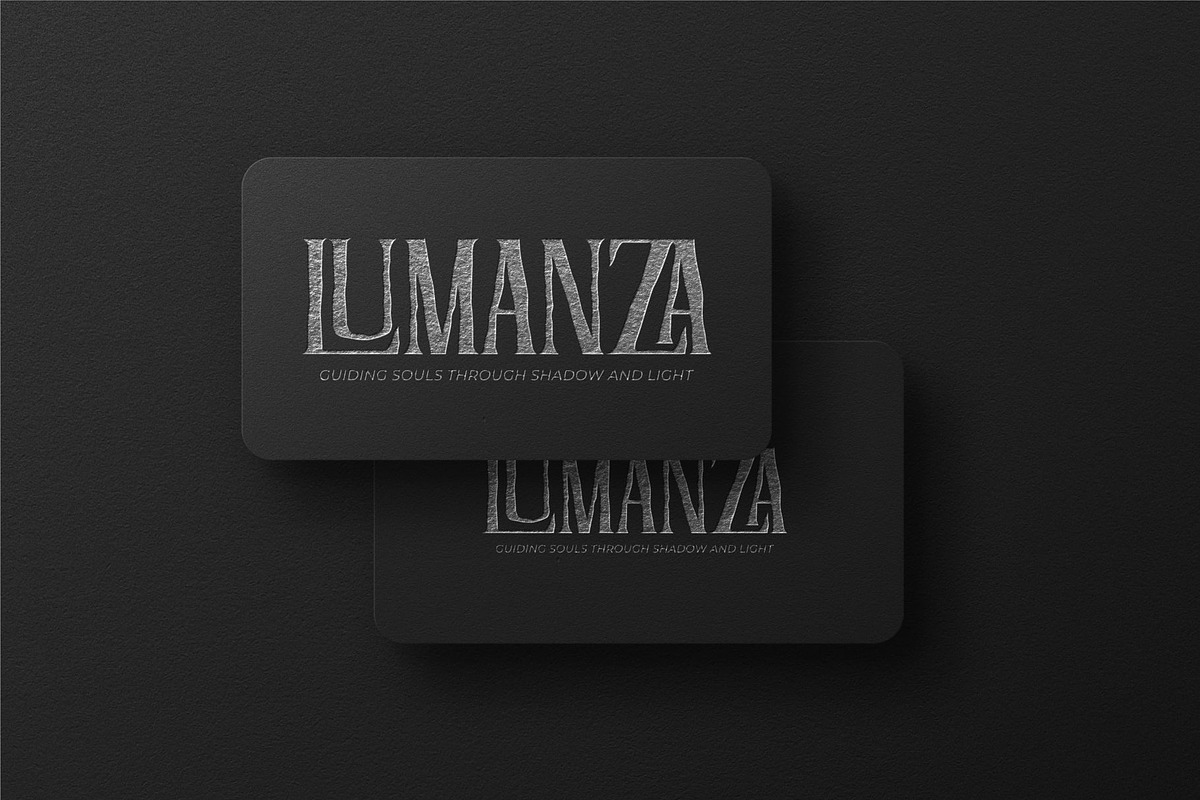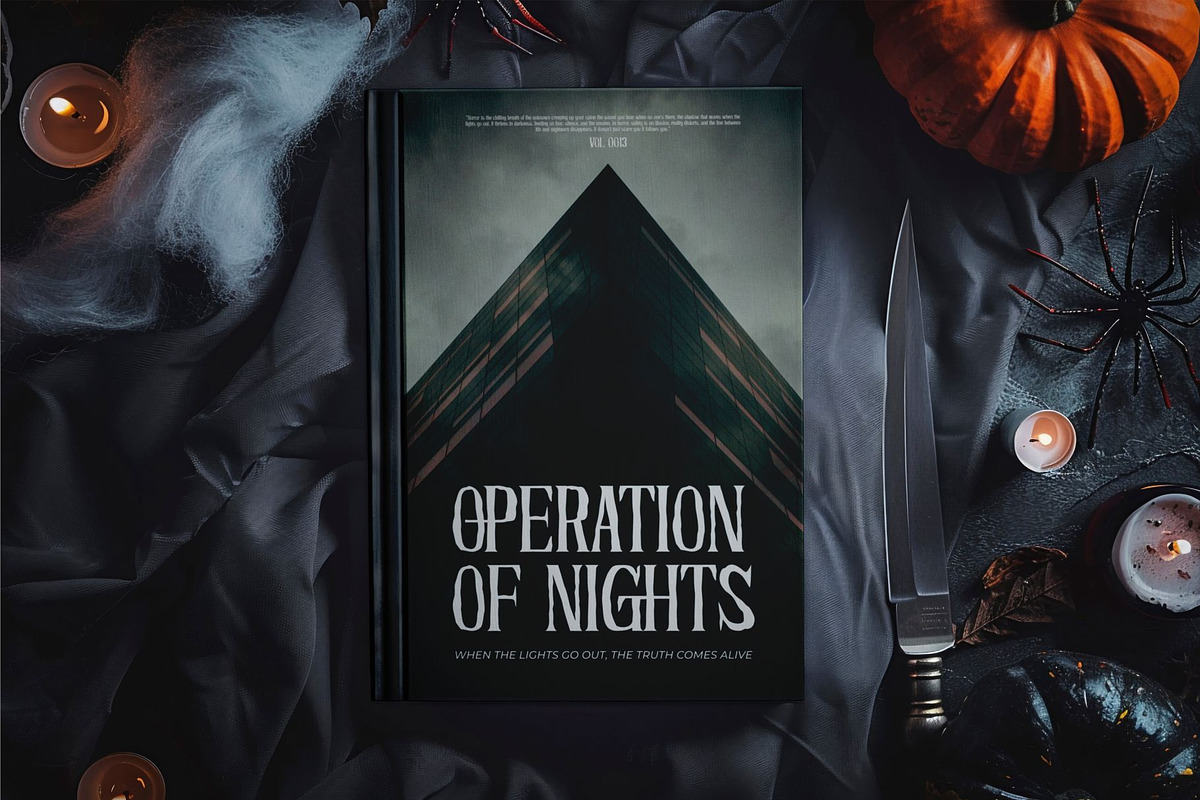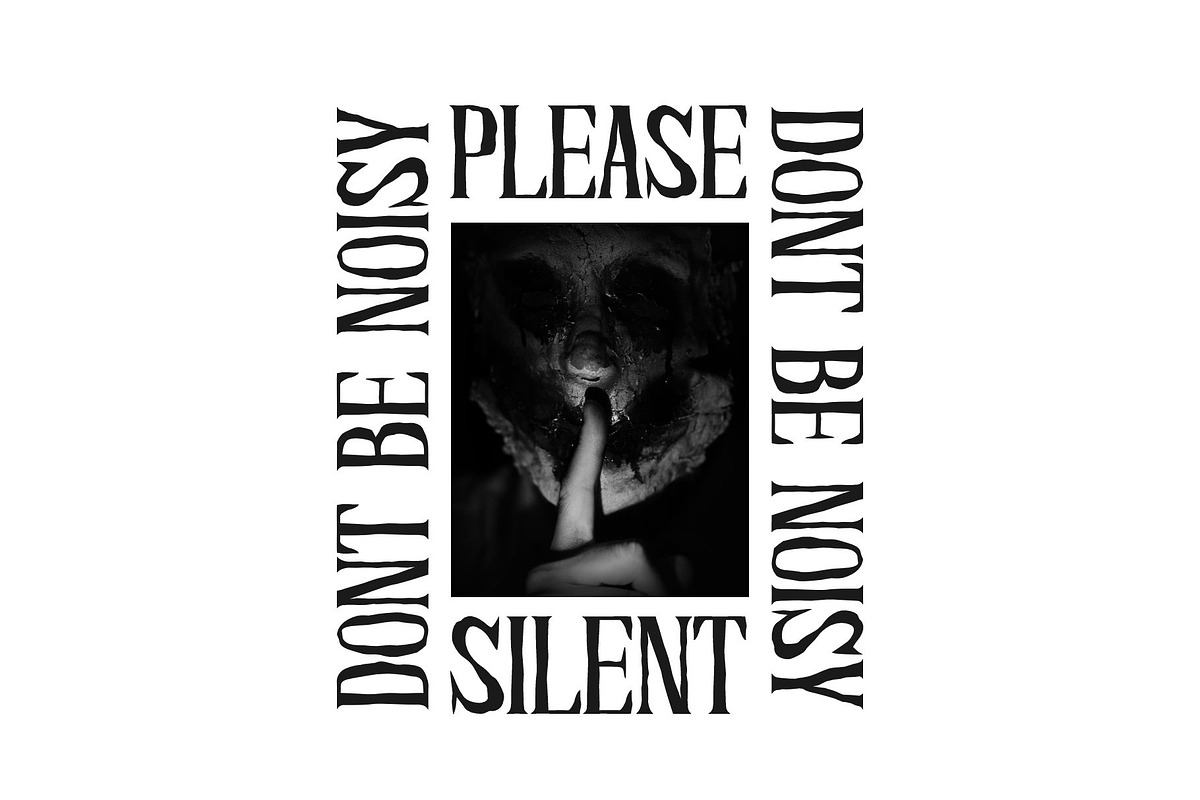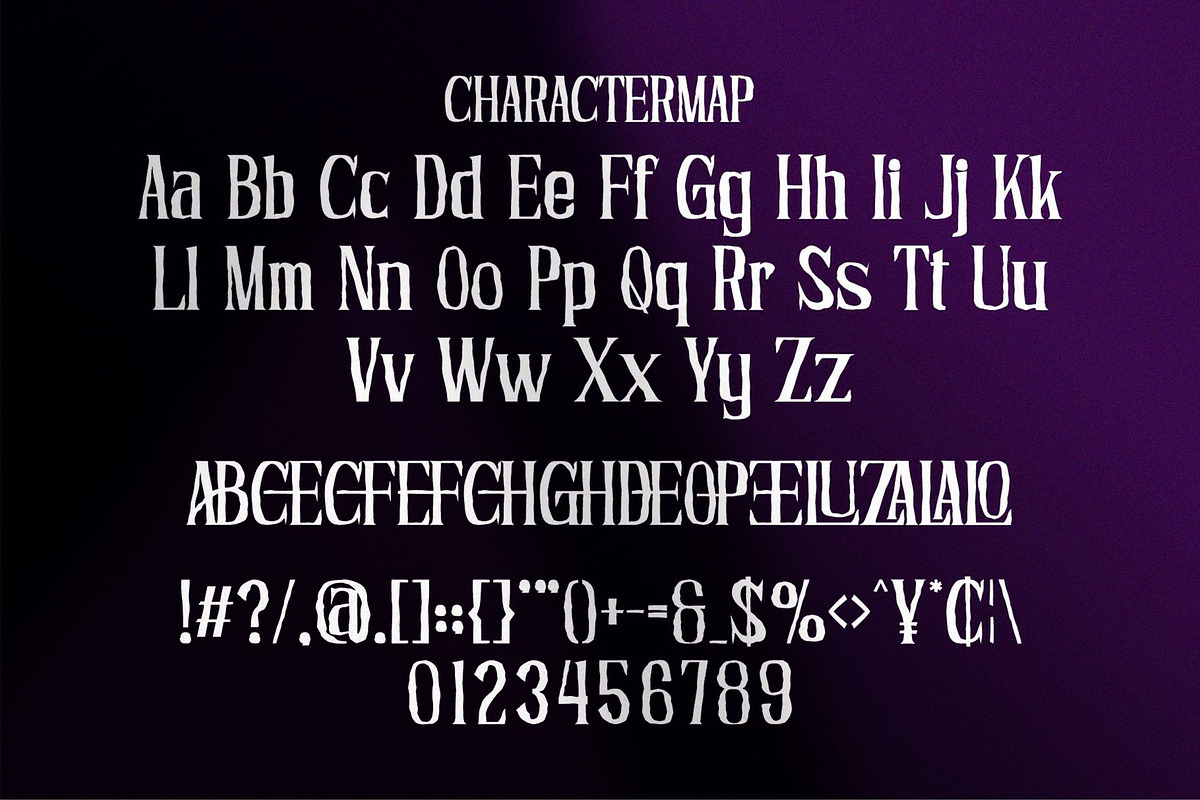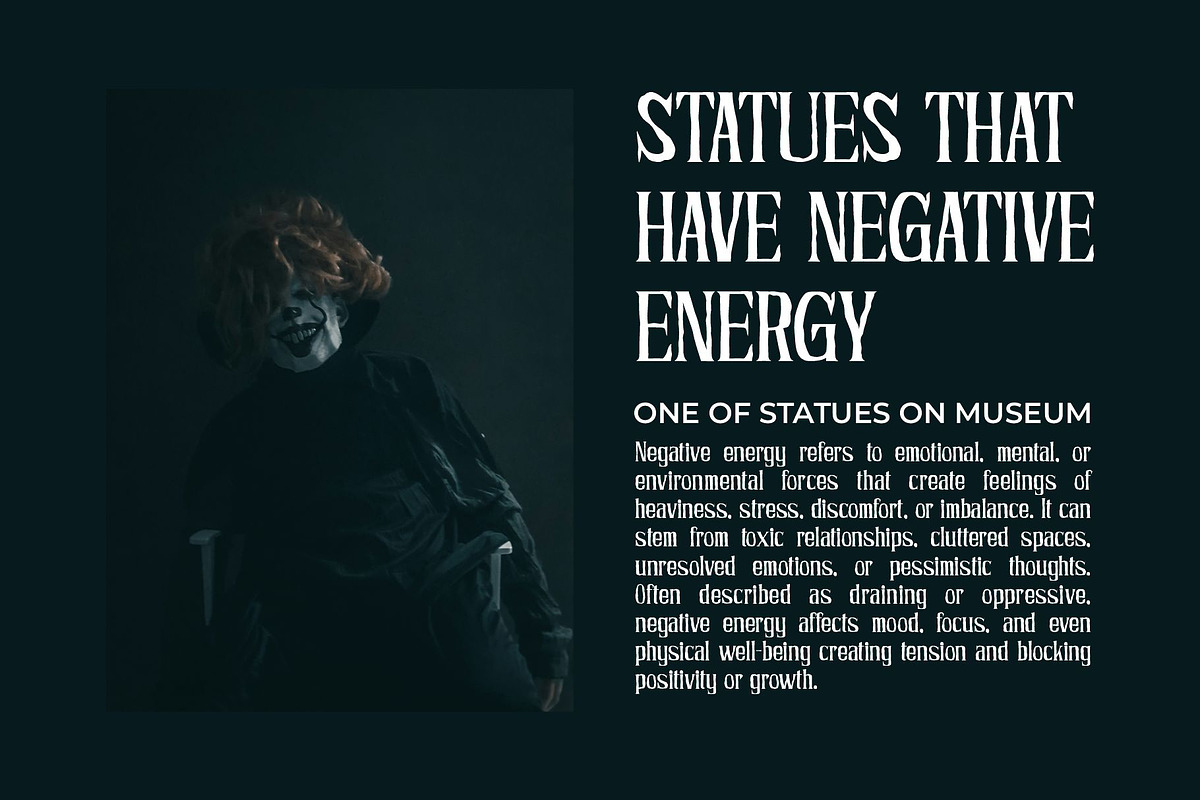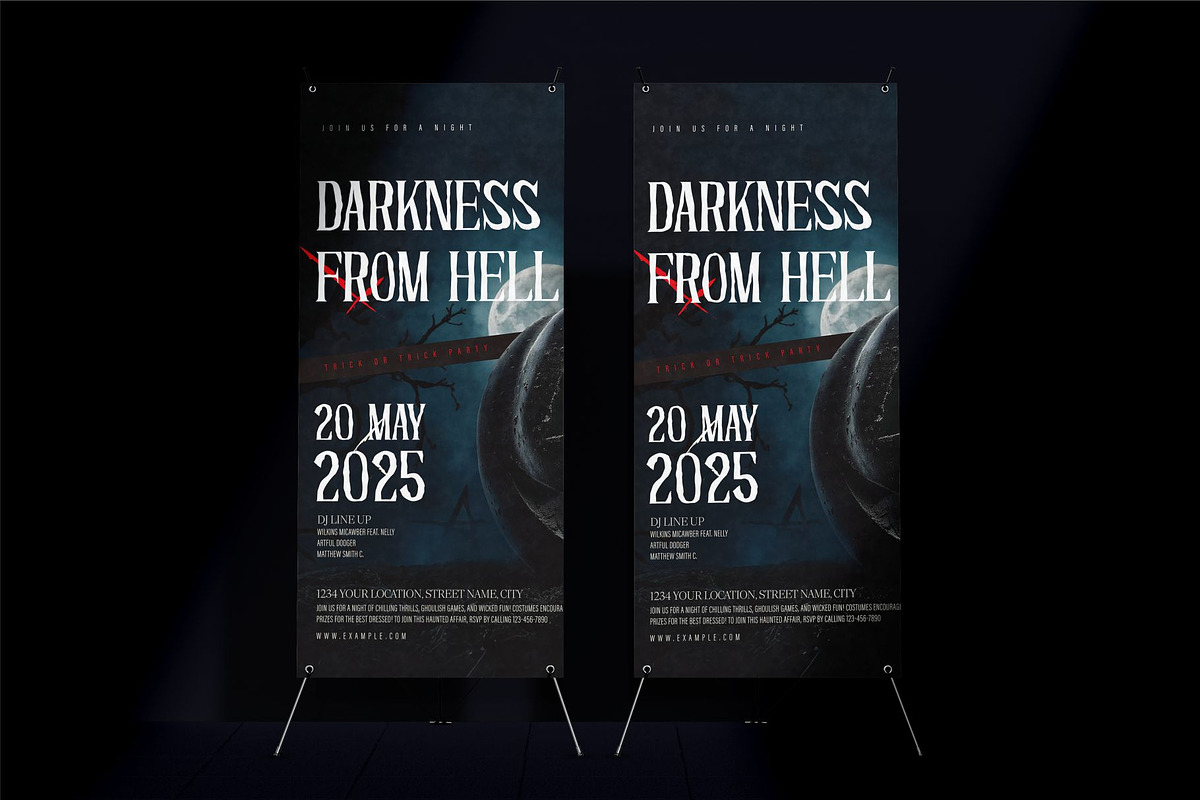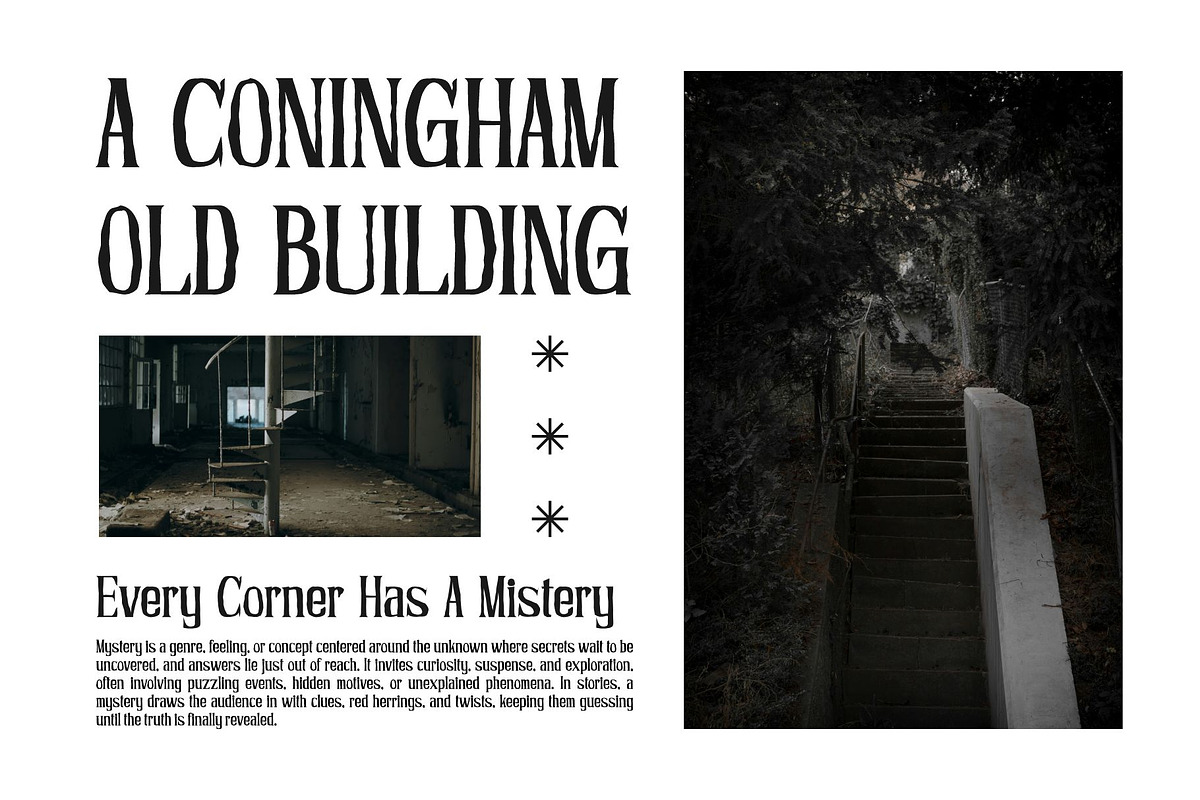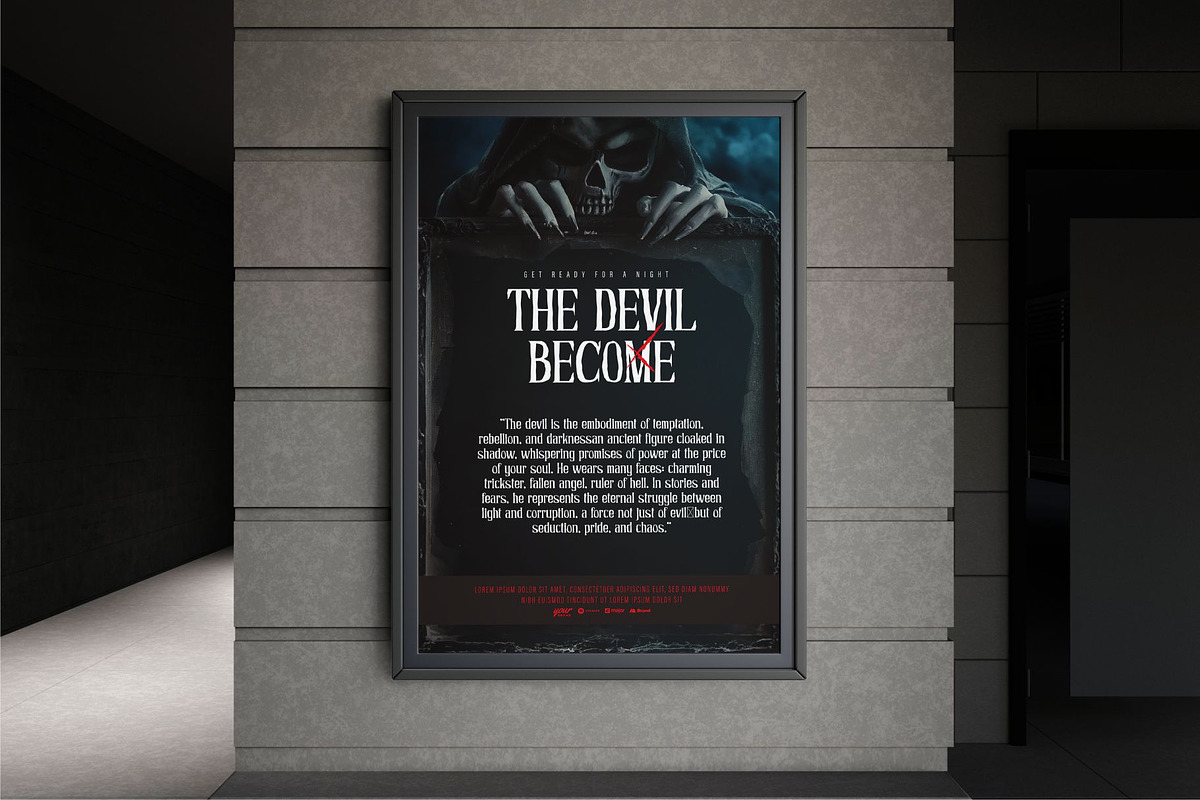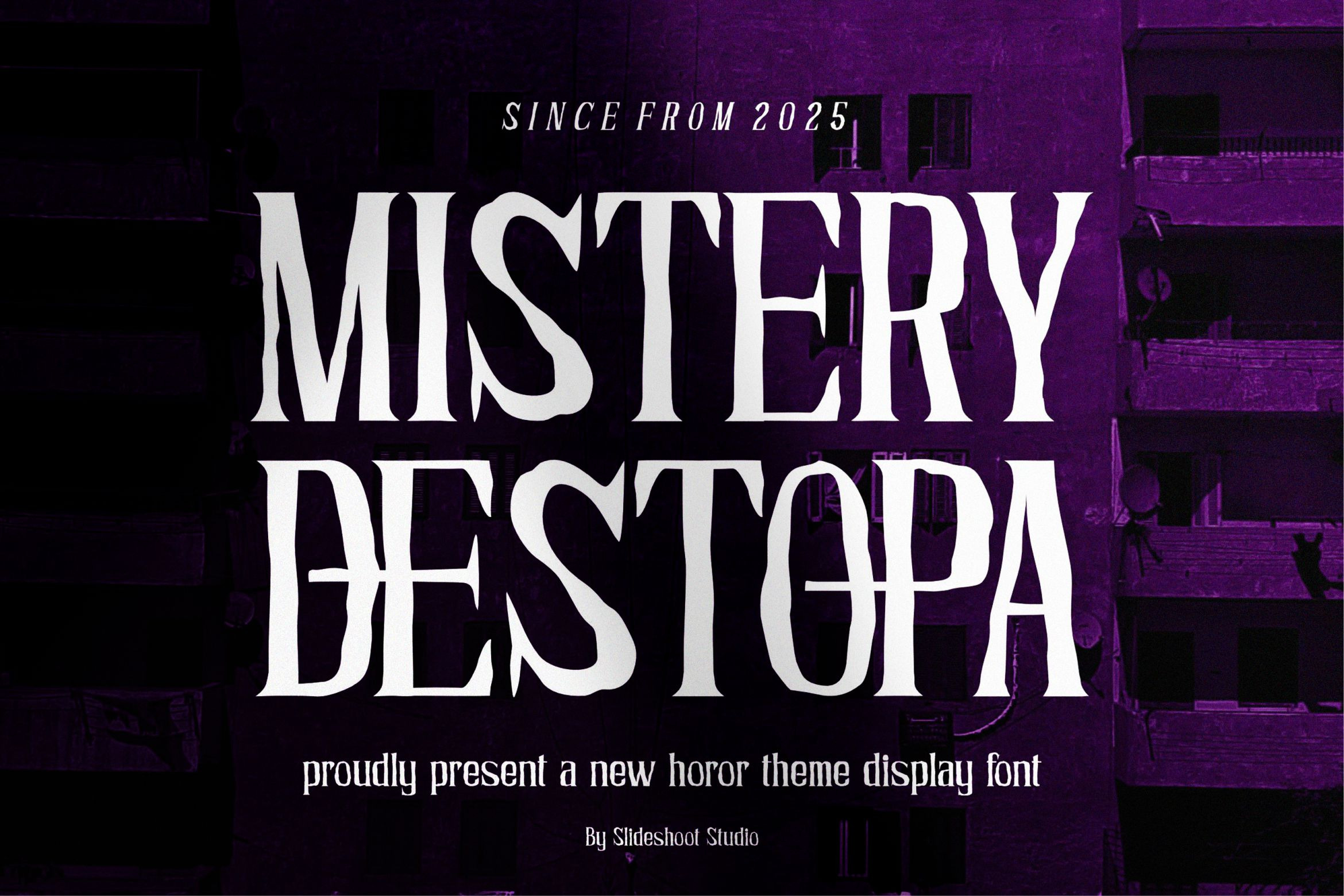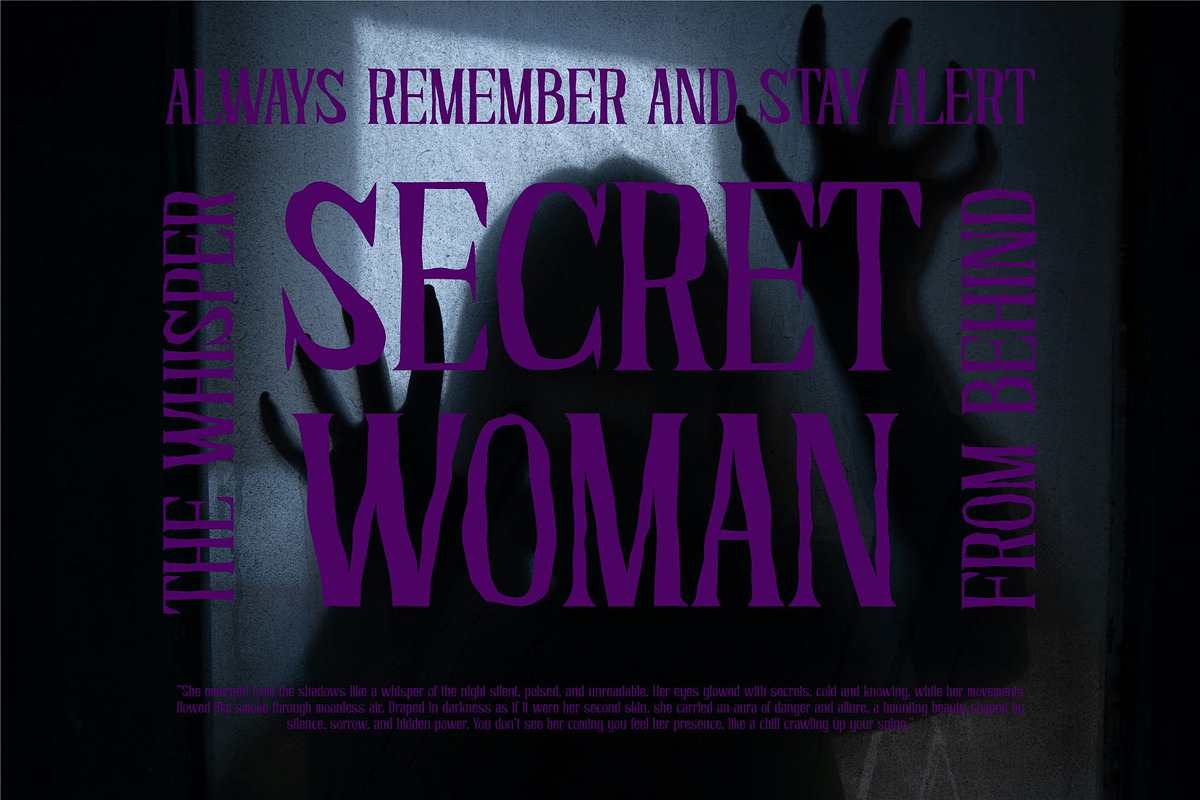
Mistery Destopa || Horor Serif Font
Introducing Mistery Destopa is horor serif font with classic style, trendy, display font. It has a unique character with wood theme. It is perfect to be combined with invitation card designs, company logos, movie titles, movie names, business cards, book titles, brand names and various other designs.